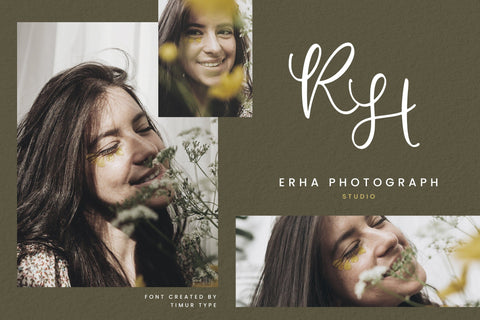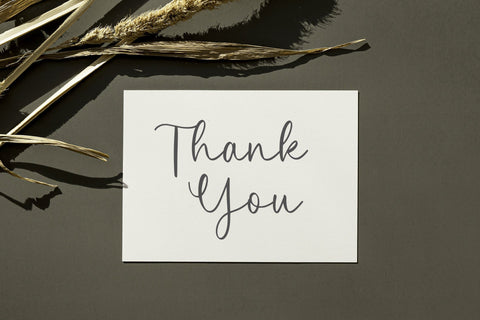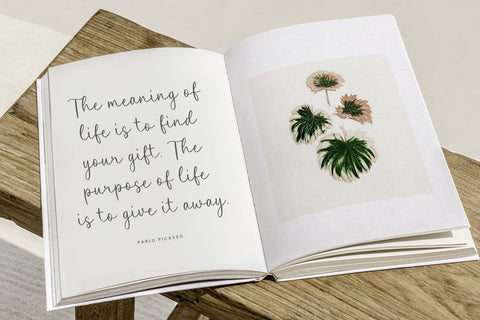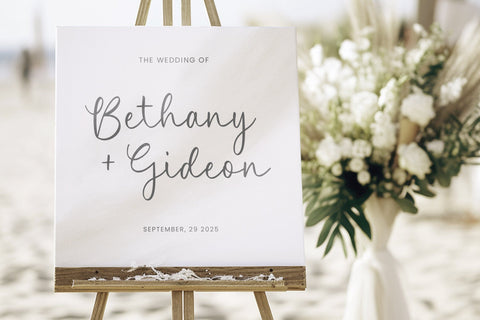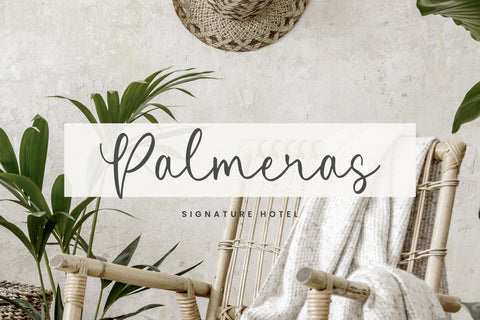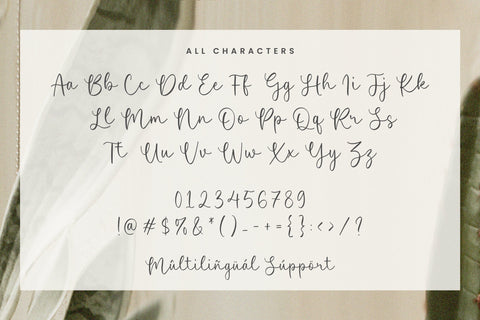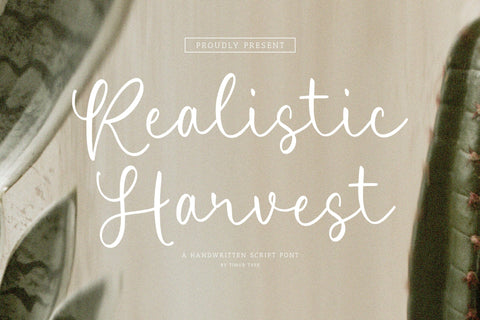
Realistic Harvest - Handwritten Script Font
Realistic Harvest is a Handwritten Script Font
this font Captivates with elegance Handwritten font, where every curve reveals a story of elegance and every detail is a brushstroke of luxury. A visual symphony for those who appreciate the art of beauty.
Realistic Harvest Font also supports multilingualism.